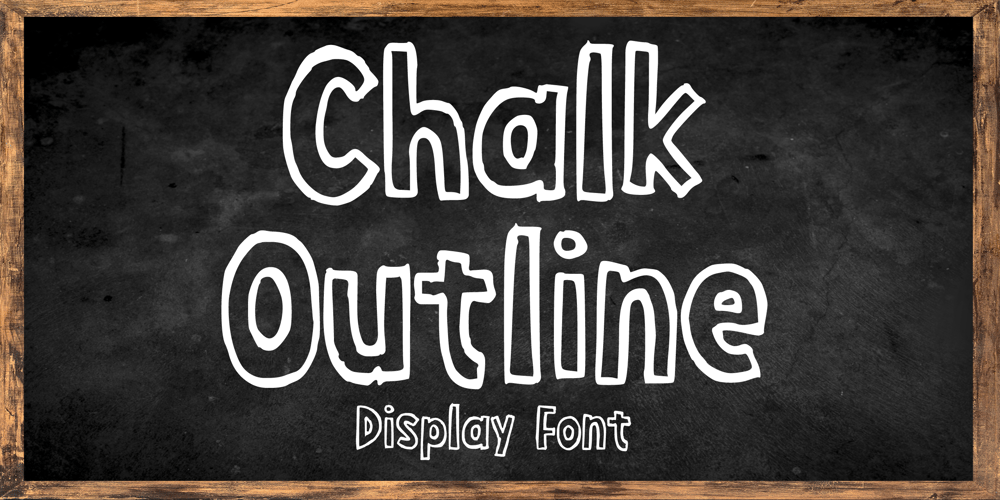
Chalk Outline Font Family was designed by Gabriel Valentinus and published by Mvmet. Chalk Outline contains 1 styles and family package options. Chalk Outline is a sketchy handwritten, chalk textured display font. It works great for creating cool designs that scream for attention. It’s ideal for anything ranging from t-shirts, book designs, restaurant menus, blog writing, and greeting cards to stickers, or anything that needs a casual touch. Fall in love with its incredibly cool style, and use it to create lovely designs!